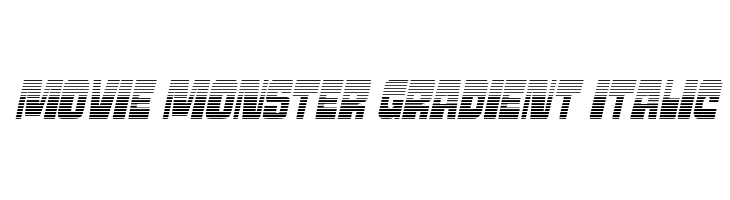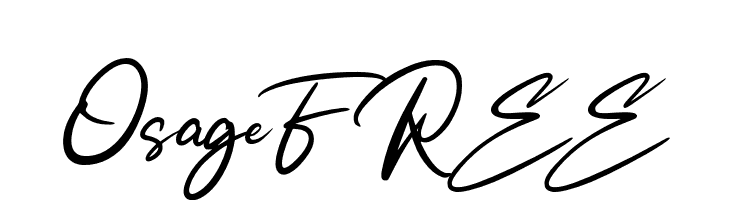
A dynamic and elegant script font with flowing, cursive letterforms.
A modern, cursive-inspired font with geometric elements, offering elegance and readability.
A bold, geometric font with rounded edges and a modern, futuristic style.
A bold, rugged, semi-italic font with jagged edges and a dynamic style.
A bold, dynamic script font with sweeping strokes and artistic flair.
A flowing, elegant cursive font with interconnected characters and graceful curves.
A bold, distressed font with a grunge texture, ideal for edgy designs.
A bold, distressed font with a hand-painted, grunge aesthetic.
A bold, geometric font with a 3D outline effect, offering a futuristic and tech-inspired aesthetic.
A bold, futuristic font with a geometric, slanted design.